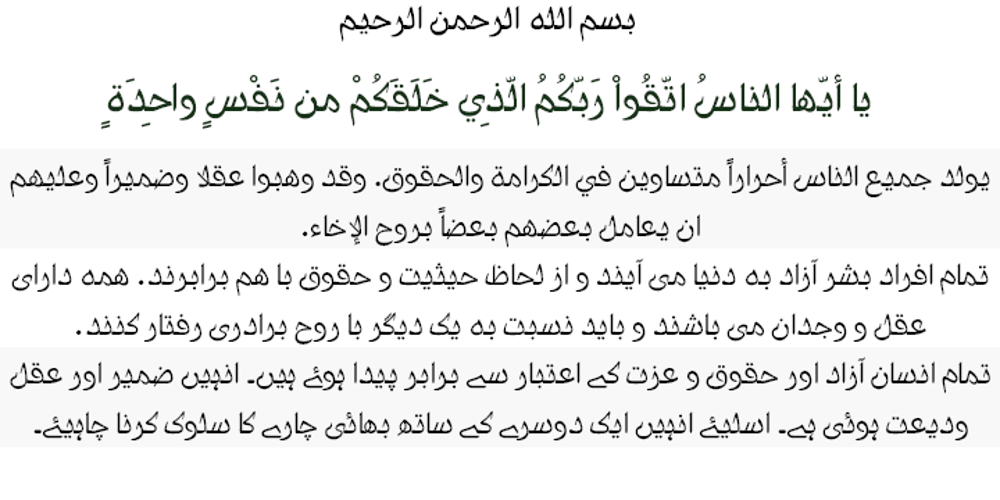
Lahab Font Family was designed by Saad D. Abulhab and published by Arabetics. Lahab contains 6 styles and family package options. A connected typeface design with a calligraphic flavor. The Lahab (Arabic for flame) font family employs visual features from the Arabic Diwani Calligraphy. It has six members, normal, bold, and light, all of which come in two styles, regular and left-slanted italic styles. This font family design follows the guidelines of Mutamathil Taqlidi type style with one glyph for every basic Arabic Unicode character or letter, as defined in the latest Unicode Standards, and one additional final form glyph, for the freely-connecting letters in traditional Arabic cursive text. Lahab employs variable x-height values. It includes only the Lam-Alif ligatures. Soft-vowel diacritic marks, harakat, are selectively positioned. Most of them appear by default on the same level, following a letter, to ensure that they would not interfere visually with letters. Tatweel is a zero-width glyph. Keying the tatweel key before Alif-Lam-Lam-Ha will display the Allah ligature. Lahab includes both Arabic and Arabic-Indic numerals, in addition to standard punctuations.